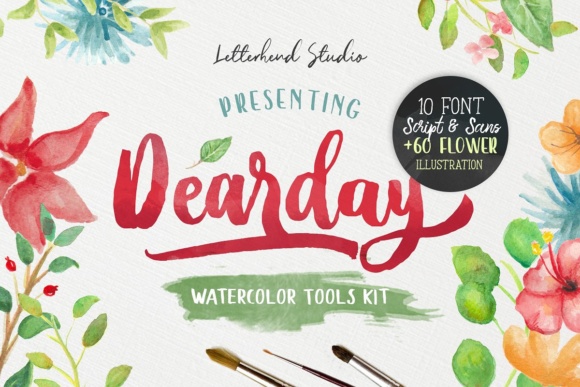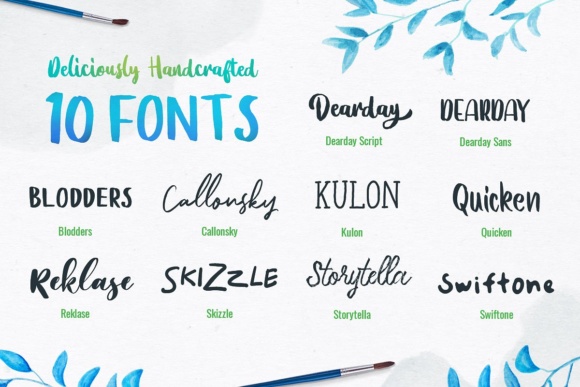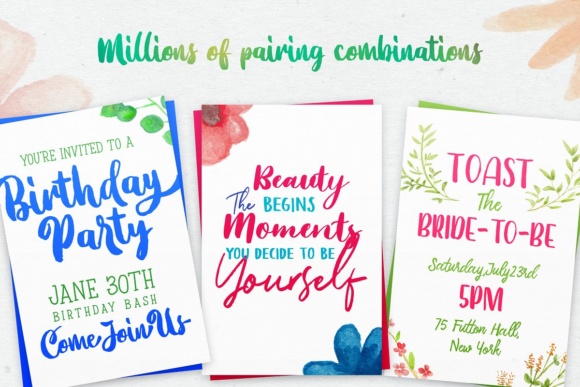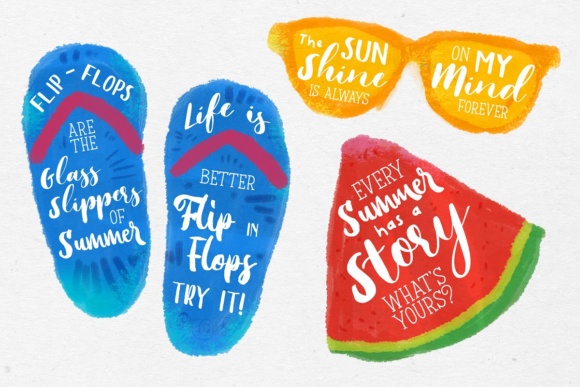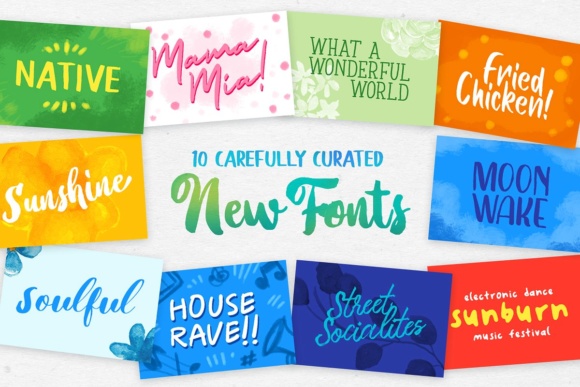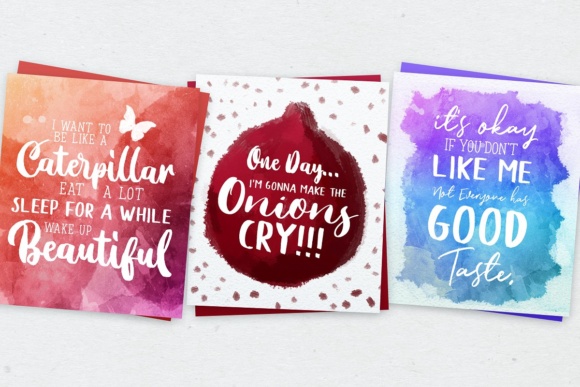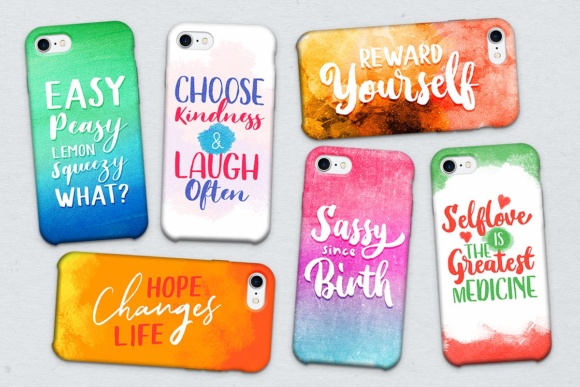
DearDay Font
About DearDay Font
This product contains 10 unique fonts and 65 hand-drawn watercolor illustrations in png! Yeah you hear it right! This product will provide anything you need to create a lovely watercolor art design. Just mix and match the fonts and you’ll can get a beautiful lettering that you can use in any media you want!